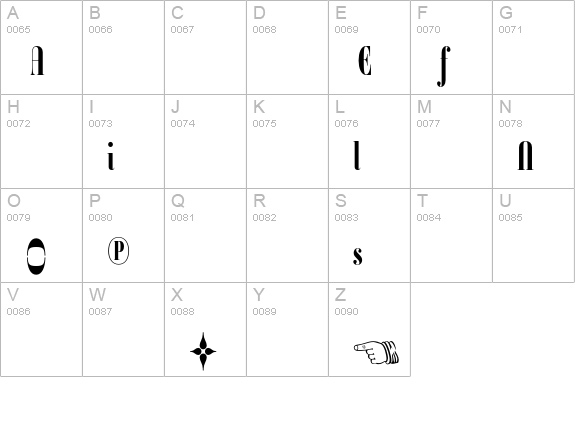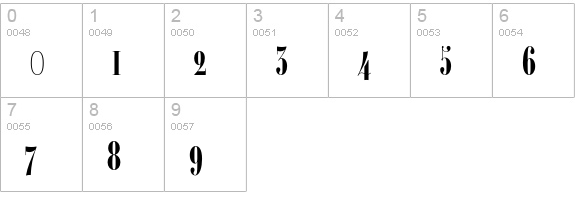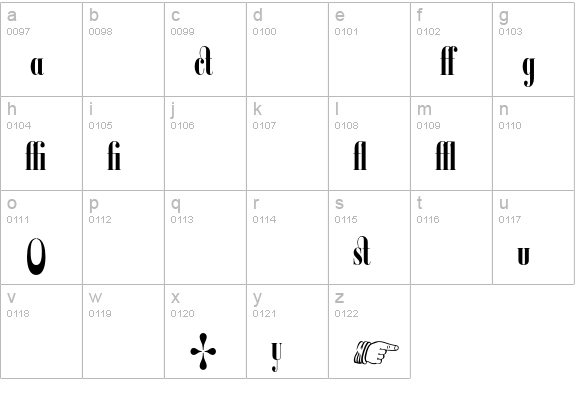
Ambroise Francois Alternates Bold Font Details
Ambroise Francois Alternates Bold is a strong, high-contrast variant in the Ambroise typeface family \xE2\x80\x94 well suited to headlines, attention-grabbing titles, and strong calls-to-action.
Ambroise Francois Alternates Bold font is a striking and bold typeface designed to make a statement. With its strong and modern appearance, this font is perfect for headlines, titles, and branding projects that require a powerful presence. The sharp edges and clean lines of Ambroise Francois Alternates Bold give it a contemporary and stylish look that is sure to capture attention. What sets this font apart is its unique alternates that provide additional design options and versatility. These alternates can add flair and creativity to your projects, making them stand out from the crowd. Whether you're designing a logo, poster, or website, Ambroise Francois Alternates Bold offers the flexibility you need to bring your vision to life. Best of all, Ambroise Francois Alternates Bold font is available for free download at FontsMarket.com. This means you can easily access this high-quality and professional font without any cost, making it a valuable resource for designers, artists, and creatives looking to elevate their work. Don't miss out on the opportunity to enhance your projects with the bold and dynamic Ambroise Francois Alternates Bold font today.